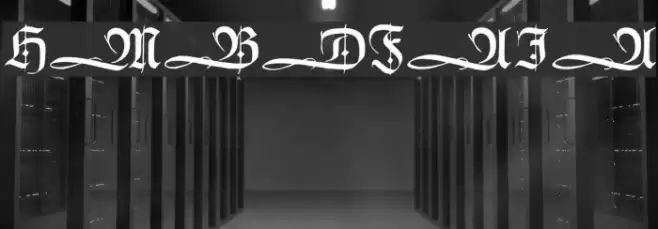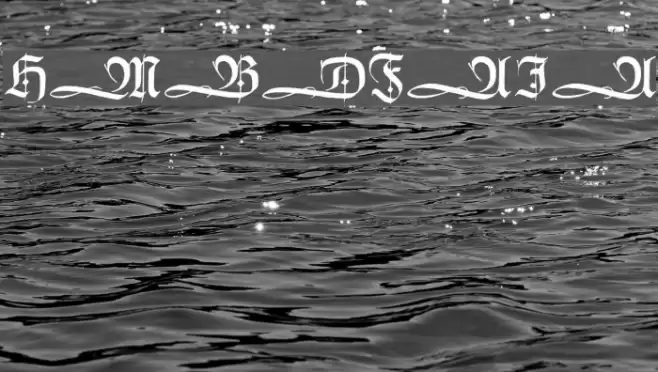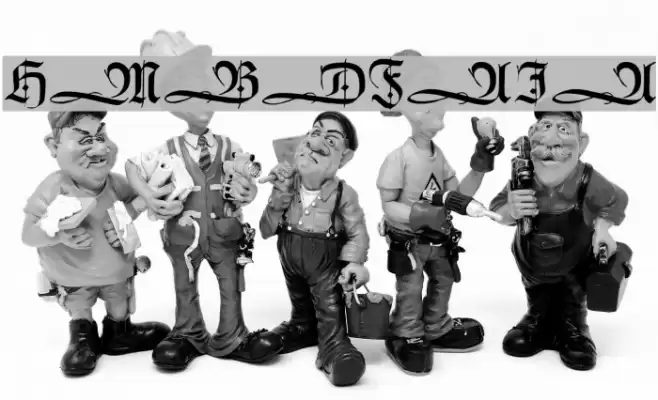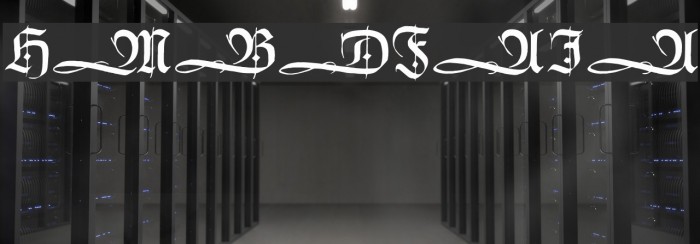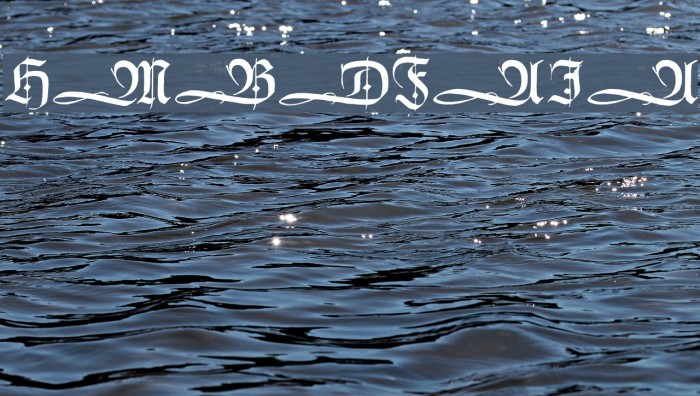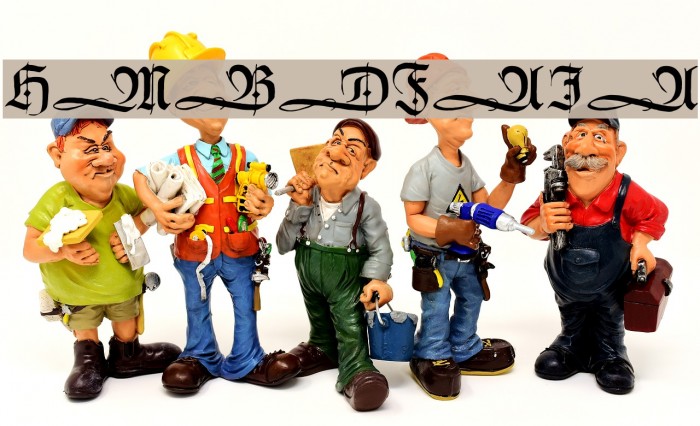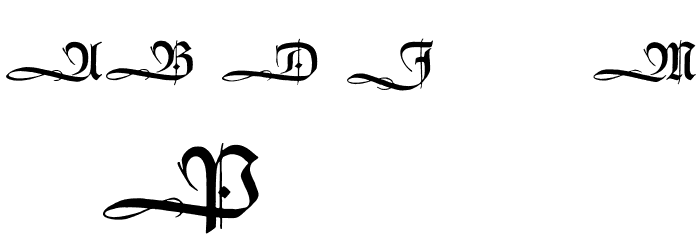
HumboldtFrakturInitialen Font
HumboldtFrakturInitialen Description
This font is a classic example of Blackletter typography, characterized by its intricate and ornate design. The letters are bold and feature sharp, angular lines with elaborate swashes and flourishes, particularly noticeable in the uppercase letters. The style is reminiscent of medieval script, often used in historical documents and manuscripts. The font exudes a sense of tradition and formality, making it suitable for projects that require a touch of elegance and historical authenticity.
An ornate Blackletter font with bold, angular lines and elaborate flourishes from Uncategorized fonts.
- Proposed Projects: Ideal for historical documents, certificates, wedding invitations, and branding that requires a vintage or formal touch.
- Overall Style: Vintage
- Use Case: Headlines, Logos, Decorative text